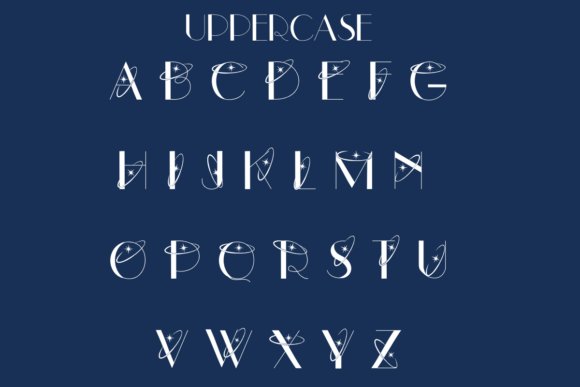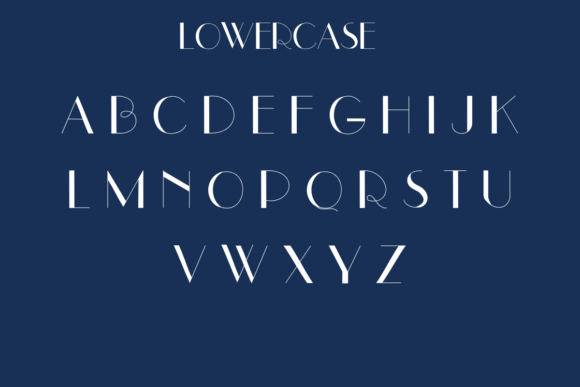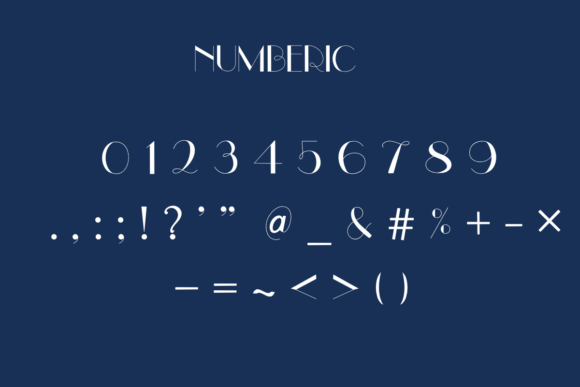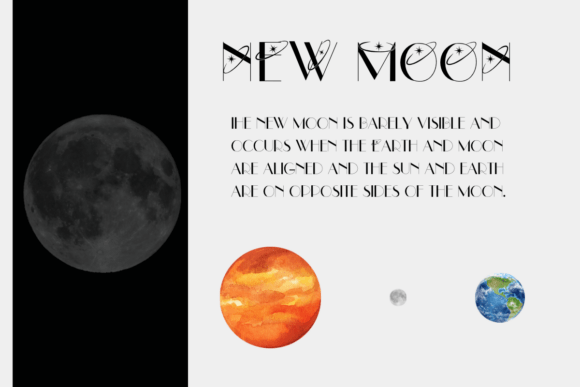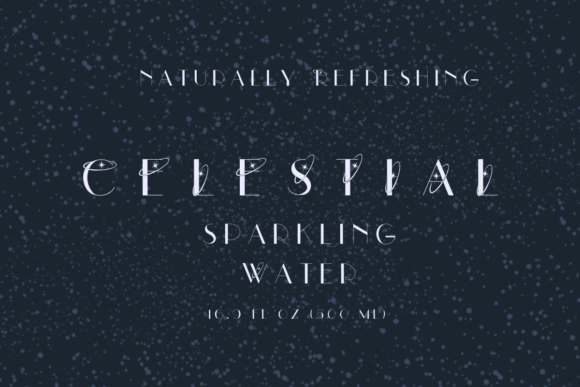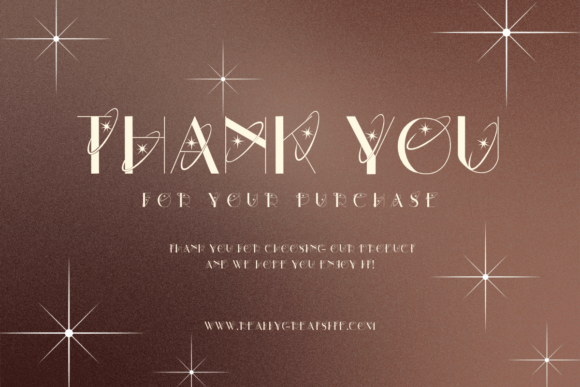
Introduction to Nova Font
Nova is a unique decorative font.
Add it to your projects, and you will be amazed by the generated outcome .
Key Features of Nova Font
Why Choose Nova Font?
Nova Font offers exceptional quality and versatility, making it a valuable addition to your design toolkit. Whether you’re creating for personal projects or commercial use, Nova Font delivers professional results.